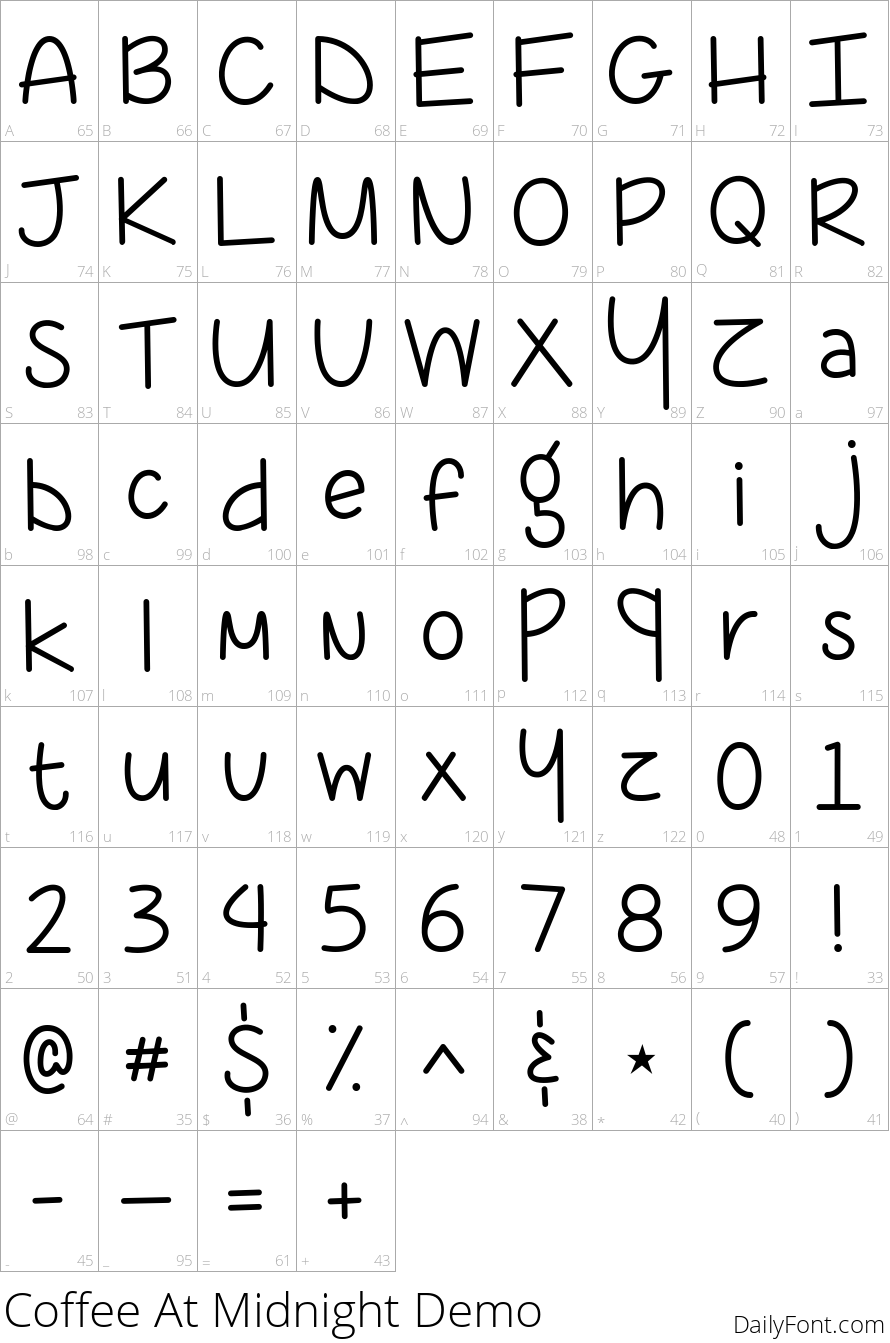
Coffee At Midnight
Looking for a unique and sophisticated handwritten font to add a personal touch to your design? Look no further! This stylish script font is perfect for creating a memorable impression on a variety of projects. Its elegant and expressive qualities make it an ideal choice for headings, logos, and titles that demand attention.
Whether you're designing invitations, greeting cards, or party materials, this font's warm and inviting tone will add a touch of elegance to your creations. Its versatility also makes it suitable for use in t-shirt designs, posters, labels, book covers, brochures, and more.
The font's playful and artistic feel is reminiscent of handwritten notes or vintage typography, making it perfect for projects that require a personal and human touch. With its wide range of letterforms and flourishes, this font offers endless possibilities for creativity and self-expression.
Whether you're working on a design project for work, school, or a personal endeavor, this font's unique character will help your message stand out in a crowd. Try it today and discover the perfect blend of sophistication and whimsy!